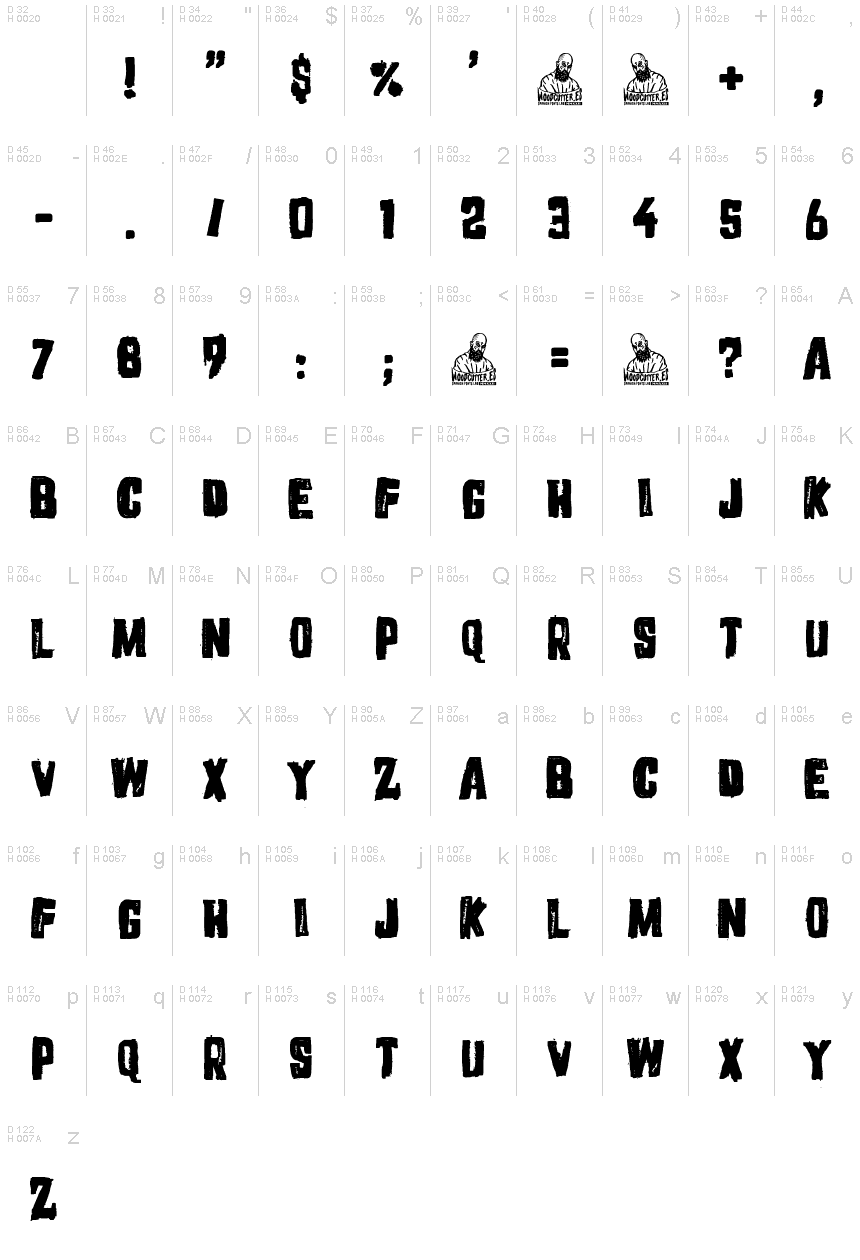
The Serial Lover
The Serial Lover font, designed by Woodcutter, is a captivating display typeface with a bold and condensed style. Its distorted and eroded design adds an edgy and vintage feel to any project.
Perfect for horror movie titles, thrilling book covers, or mysterious event invitations, this font will leave a lasting impression on your audience. Its unique look is also well-suited for rock band logos, tattoo designs, or underground fashion brands seeking to stand out from the crowd.
Embrace the dark side with The Serial Lover font.